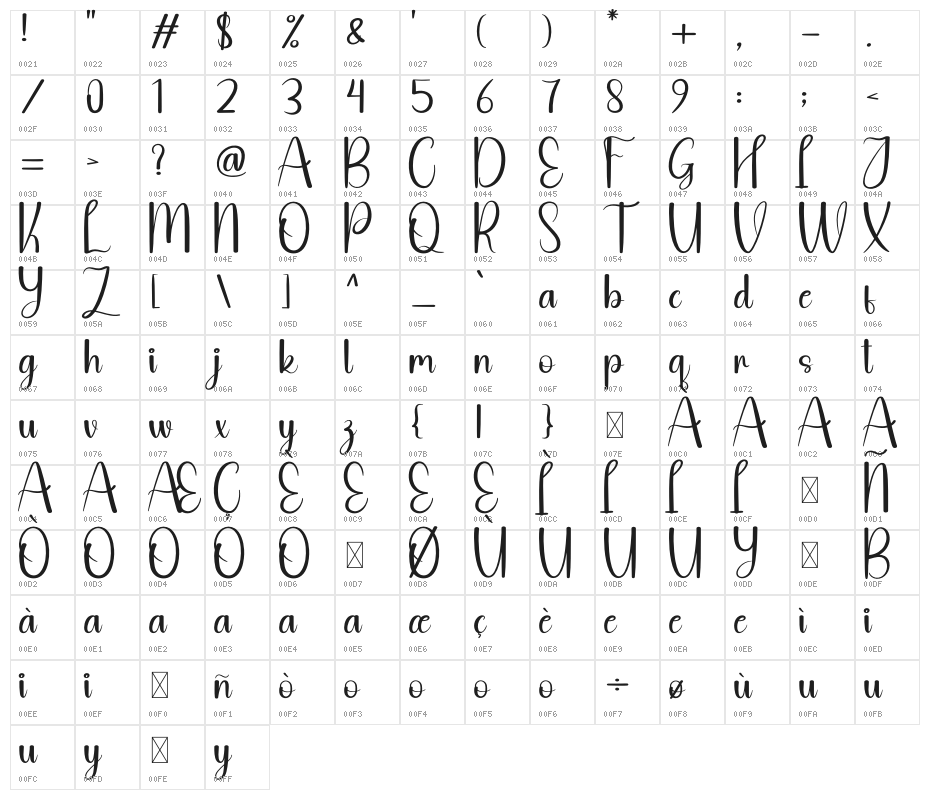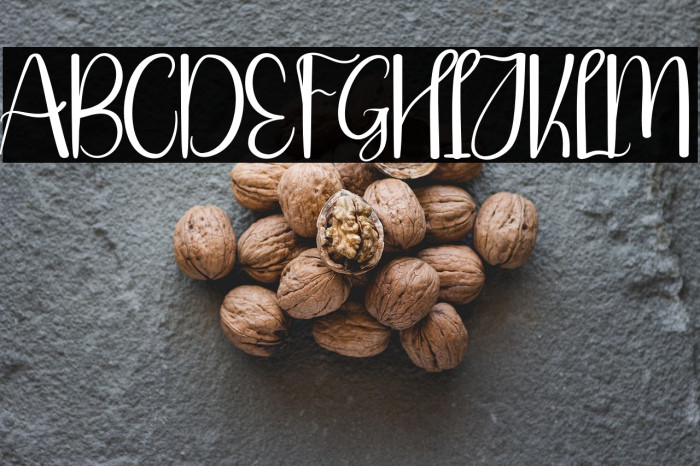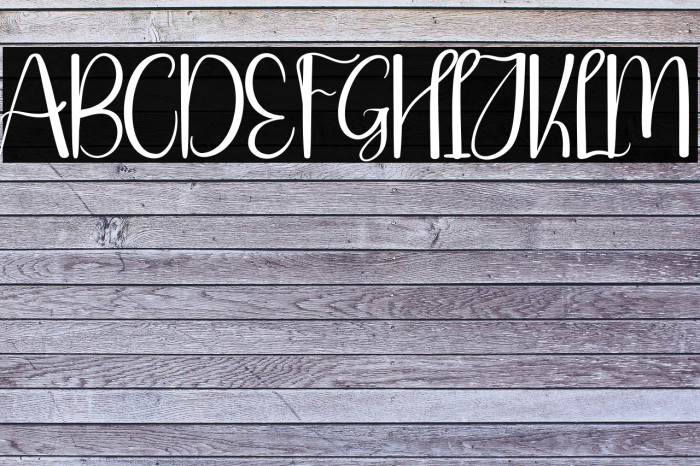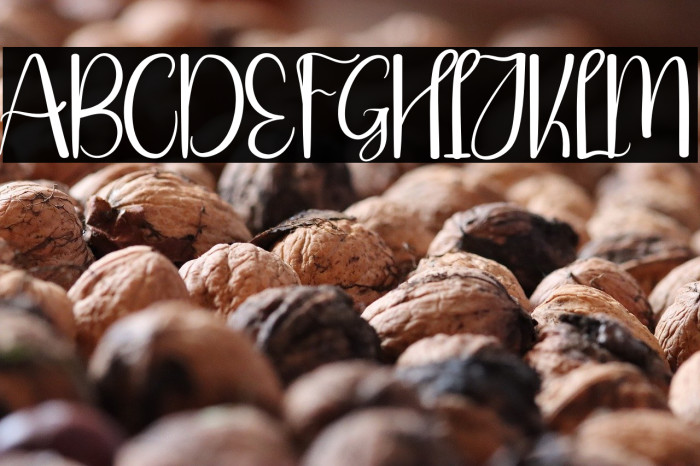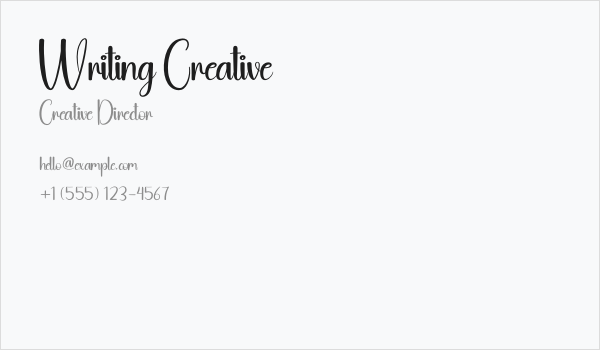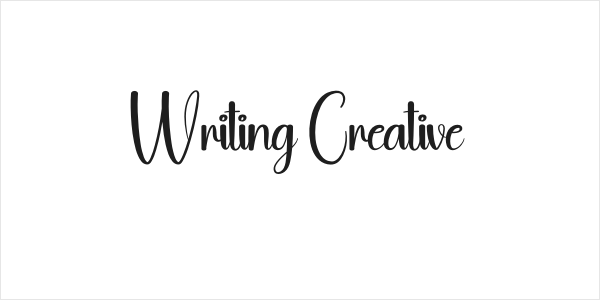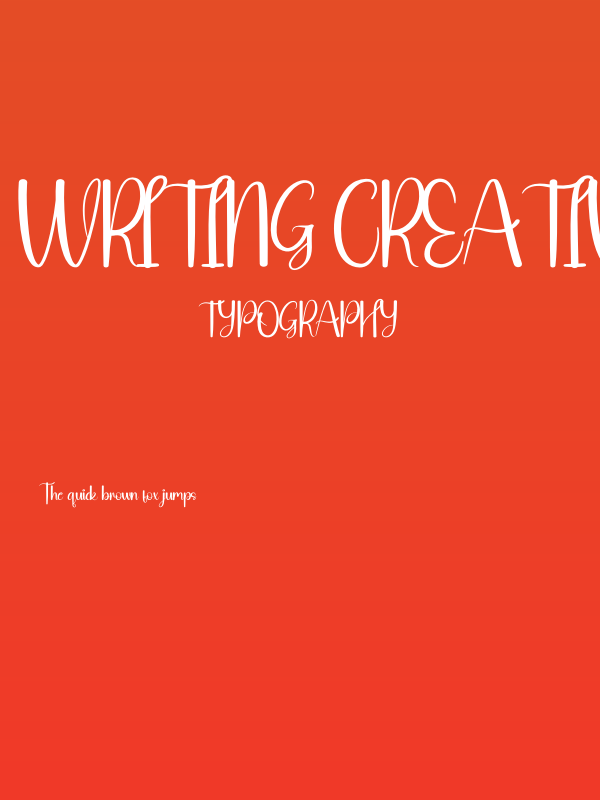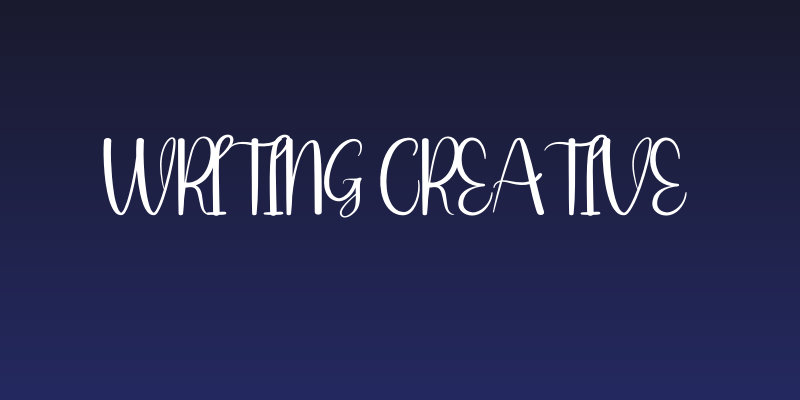
Writing Creative Font
Writing Creative Description
This font features a playful and whimsical style with a handwritten touch. The uppercase letters are tall and narrow, with a slight slant that adds a dynamic feel. The lowercase letters are more rounded and bold, providing a nice contrast to the uppercase. The numbers are consistent with the overall style, maintaining the playful and informal aesthetic. Special characters are creatively integrated, enhancing the font's versatility. The strokes are smooth and fluid, giving a sense of movement and energy.
| Overall Style | Playful |
| Use Case | Logos, Headlines, Creative projects |
| Proposed Projects | Ideal for greeting cards, playful branding, children's books, and creative invitations. |